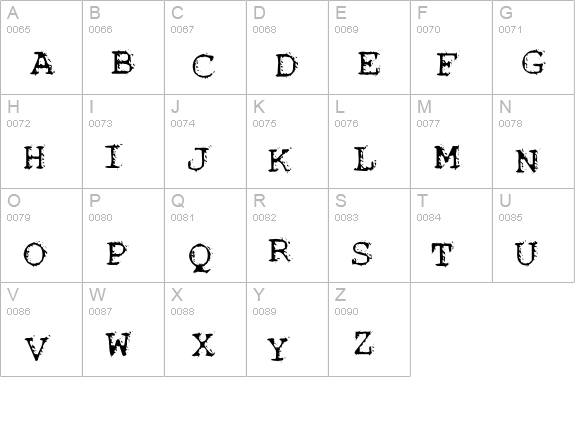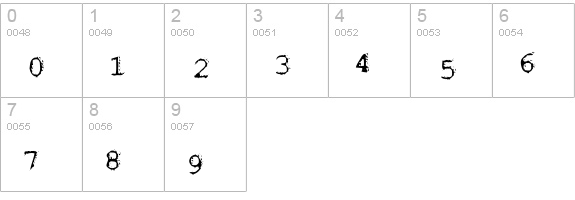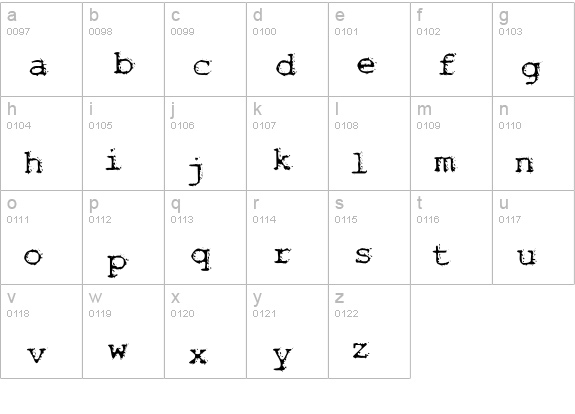
Noisebaby Font Details
Introducing Noisebaby font, a whimsical and playful typeface that is sure to add a touch of fun to your projects. With its unique hand-drawn style and quirky details, Noisebaby is perfect for adding a touch of personality to your designs. Whether you're working on a children's book, a party invitation, or a social media graphic, this font will bring a sense of charm and creativity to your work. Best of all, Noisebaby font is available for free download at FontsMarket.com. That's right, you can add this delightful typeface to your collection without spending a dime. With its versatility and eye-catching design, Noisebaby is sure to become a go-to font for all your creative endeavors. Download it today and let your imagination run wild with this charming and whimsical typeface.